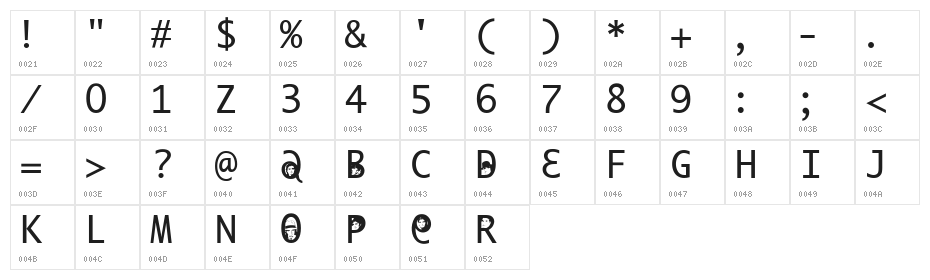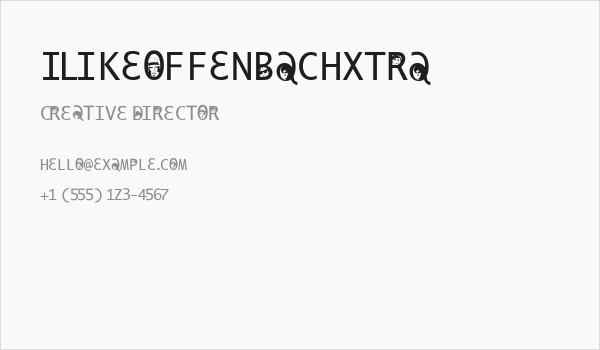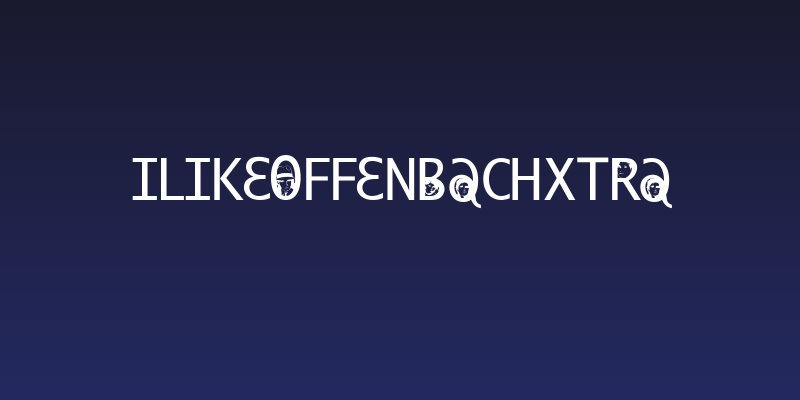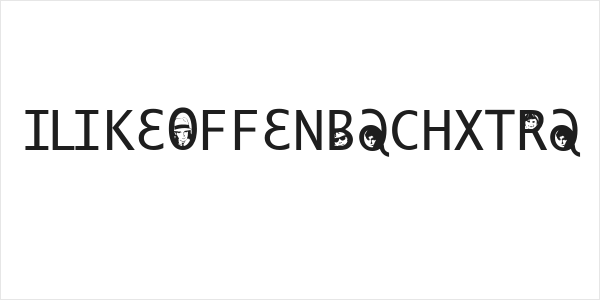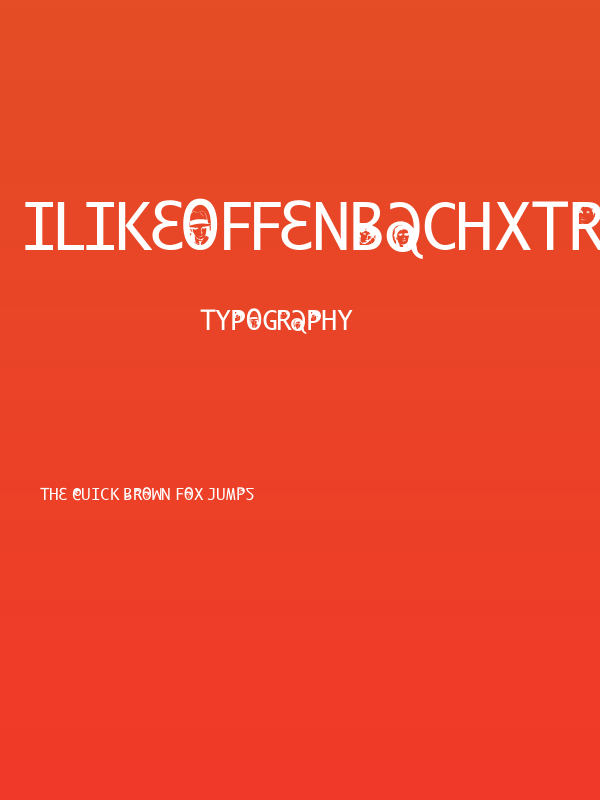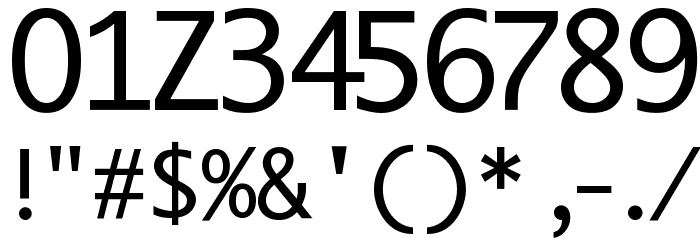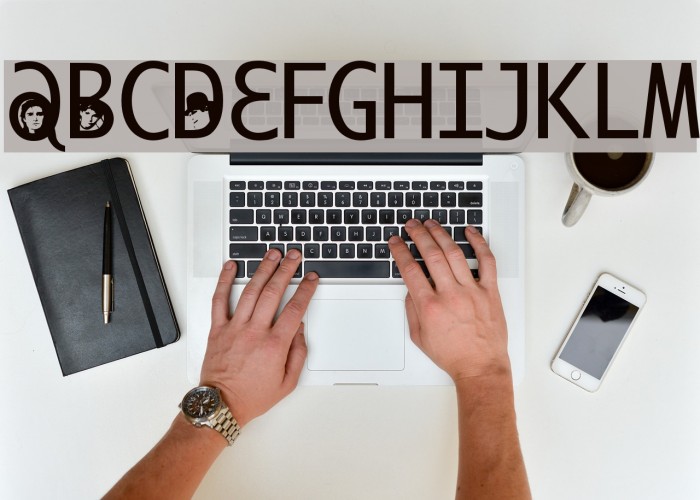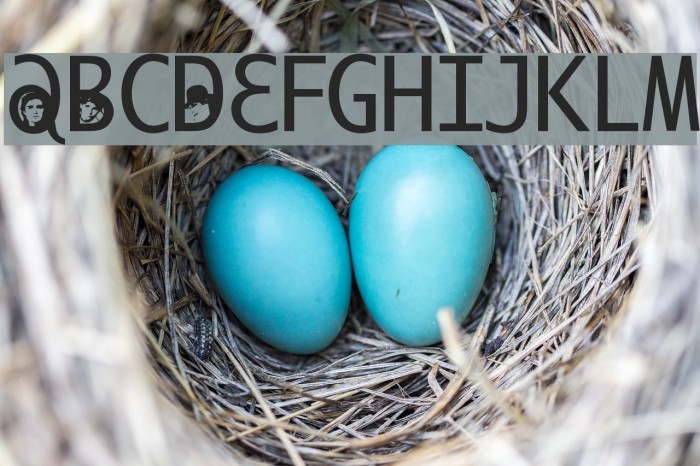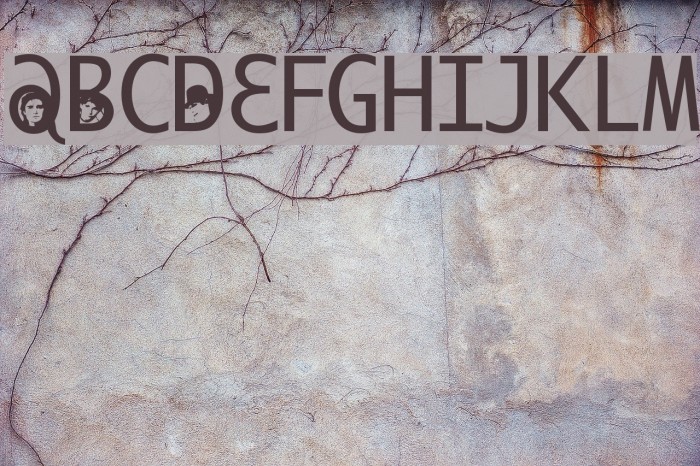
ILikeOffenbachXtra Font
ILikeOffenbachXtra Description
This font is a unique and playful typeface that incorporates images within the letterforms, giving it a distinctive and artistic appearance. The characters are bold and sans-serif, with a modern and clean design. The integration of images within certain letters adds a decorative and whimsical touch, making it stand out for creative projects. The numbers and special characters maintain the same bold style, ensuring consistency across the typeface. This font is ideal for projects that require a fun and eye-catching aesthetic.
| Proposed Projects | Ideal for creative posters, album covers, artistic branding, and any project needing a unique visual impact. |